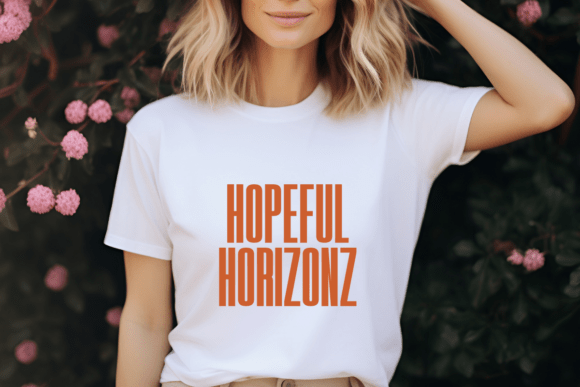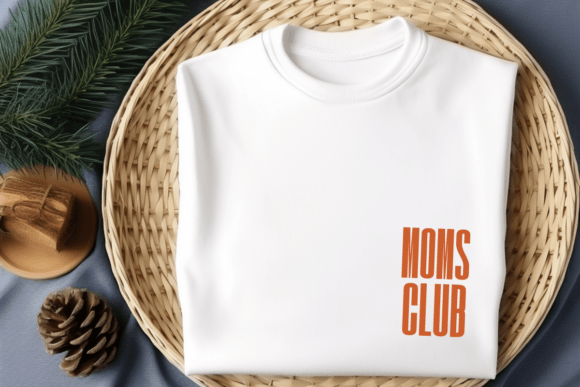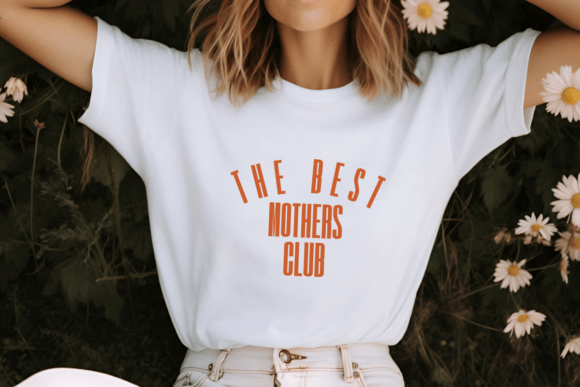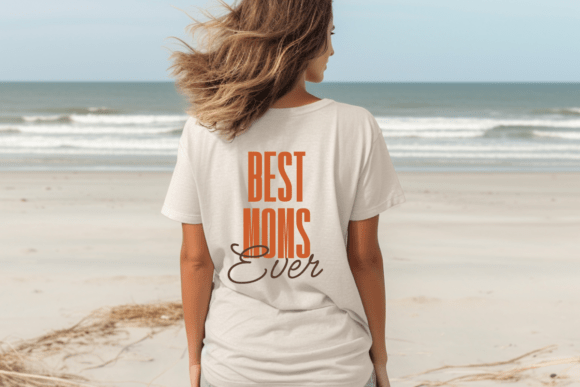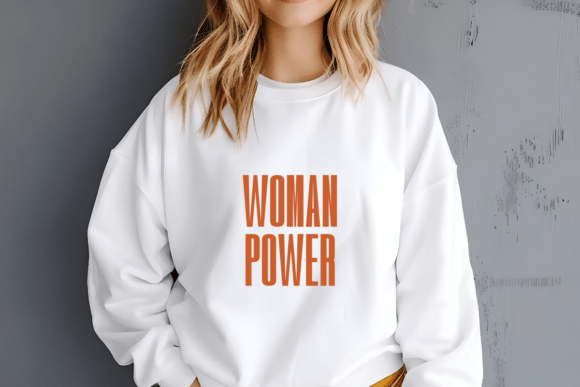
Introducing Escape Font: The Ultimate Retro Condensed Sans Serif for Modern Designs
Are you on the hunt for a font that embodies the perfect blend of vintage charm and modern sophistication? Look no further than Escape Font, a striking retro condensed sans serif typeface that is sure to elevate your designs to new heights. With its exceptionally tall and narrow letterforms, Escape is designed to command attention while maintaining a clean and minimalist aesthetic that will leave a lasting impression on your audience.
The Perfect Font for Attention-Grabbing Designs
Escape Font is characterized by its unique and striking appearance, making it the perfect choice for designers who want to create attention-grabbing designs. Its tall and narrow letterforms are perfect for creating vertical impact, making it ideal for designs that require bold and readable text in a compact space. Whether you’re aiming to create a 70s-inspired travel poster or a high-end fashion magazine cover, Escape provides the perfect solution for your design needs.
A Versatile Typeface for Various Design Applications
One of the standout features of Escape Font is its versatility. This typeface is a dream for Print On Demand (POD) creators, making it ideal for a wide range of design applications, including:
- T-shirts: Create bold and eye-catching designs for t-shirts that require compact and readable text.
- Tote bags: Add a touch of elegance and sophistication to your tote bag designs with Escape Font.
- Posters: Create striking posters that command attention with Escape Font’s unique and bold letterforms.
- Logo design: Use Escape Font to create logos that require a touch of nostalgic elegance and sophistication.
- Cinematic titles: Add a touch of retro-modern charm to your cinematic titles with Escape Font.
- Branding projects: Use Escape Font to create branding projects that require a unique and attention-grabbing typeface.
Why Choose Escape Font?
So, why choose Escape Font for your design needs? Here are just a few reasons:
- Unique and striking appearance: Escape Font’s unique and bold letterforms are sure to grab attention and leave a lasting impression on your audience.
- Versatility: Escape Font is a versatile typeface that can be used for a wide range of design applications, from POD products to logo design and branding projects.
- Retro-modern vibe: Escape Font’s retro-modern vibe adds a touch of nostalgic elegance and sophistication to any design.
In conclusion, Escape Font is a striking retro condensed sans serif typeface that is sure to elevate your designs to new heights. With its unique and bold letterforms, versatility, and retro-modern vibe, Escape Font is the perfect choice for designers who want to create attention-grabbing designs that command attention. Whether you’re a POD creator, graphic designer, or branding expert, Escape Font is a must-have addition to your font library.